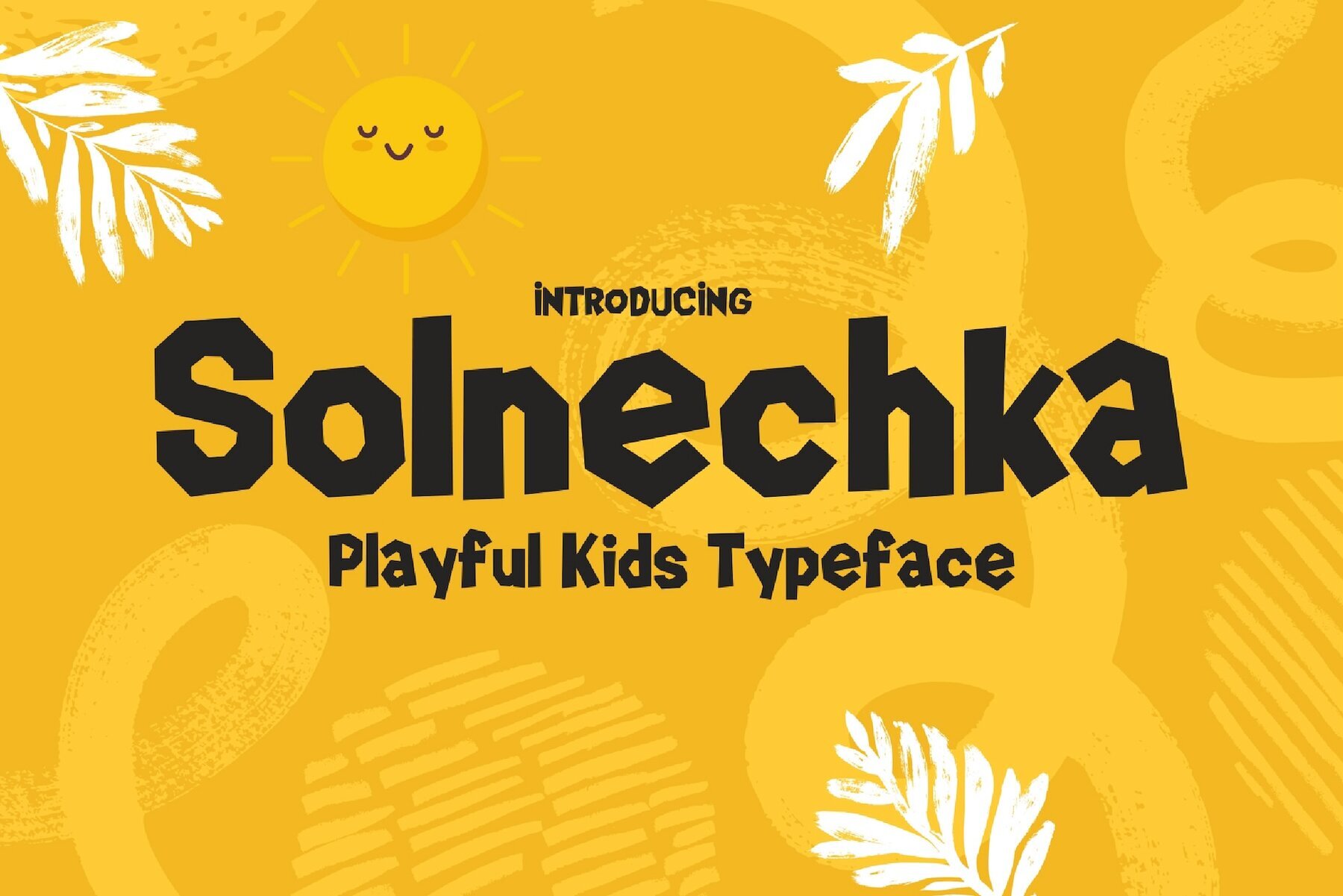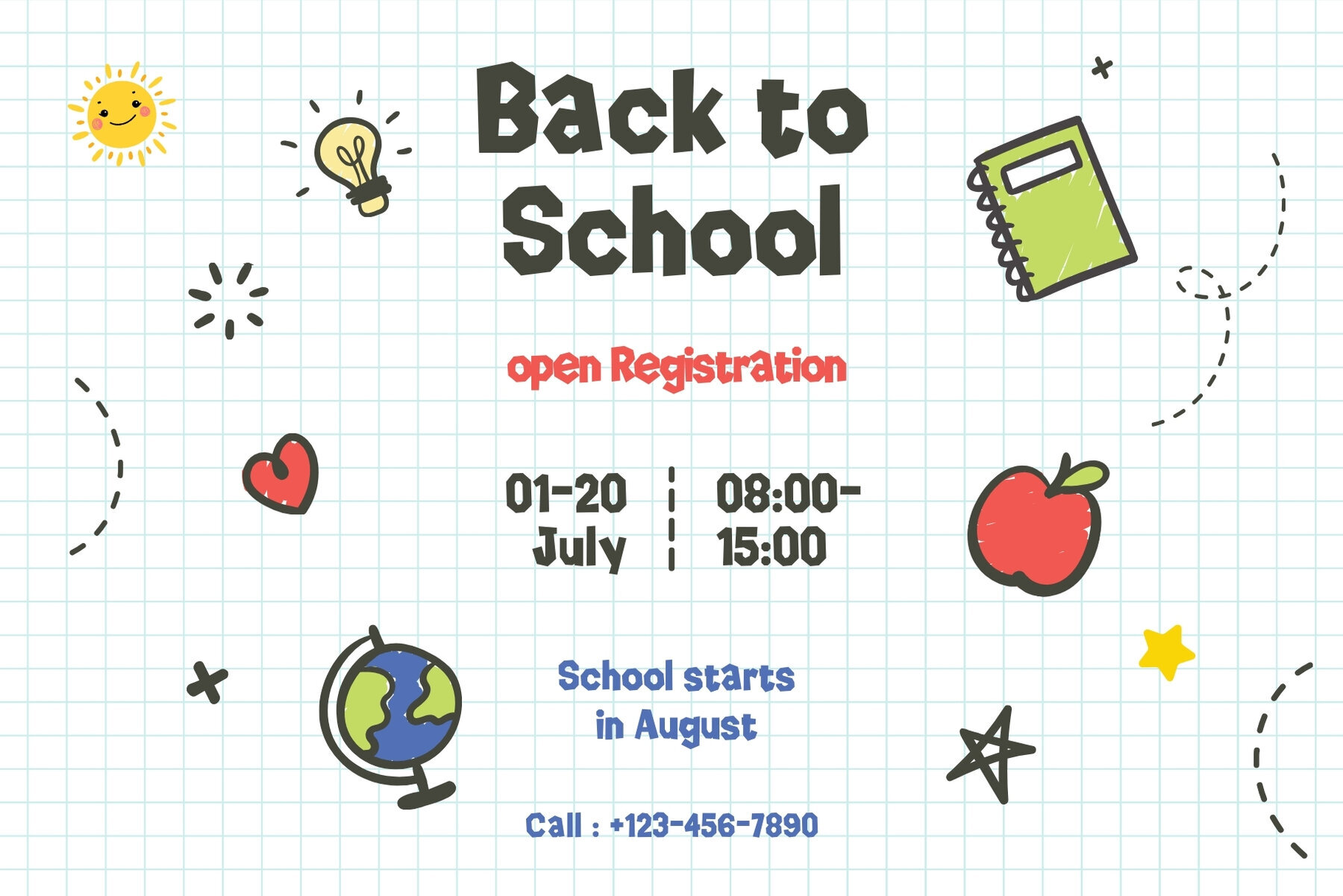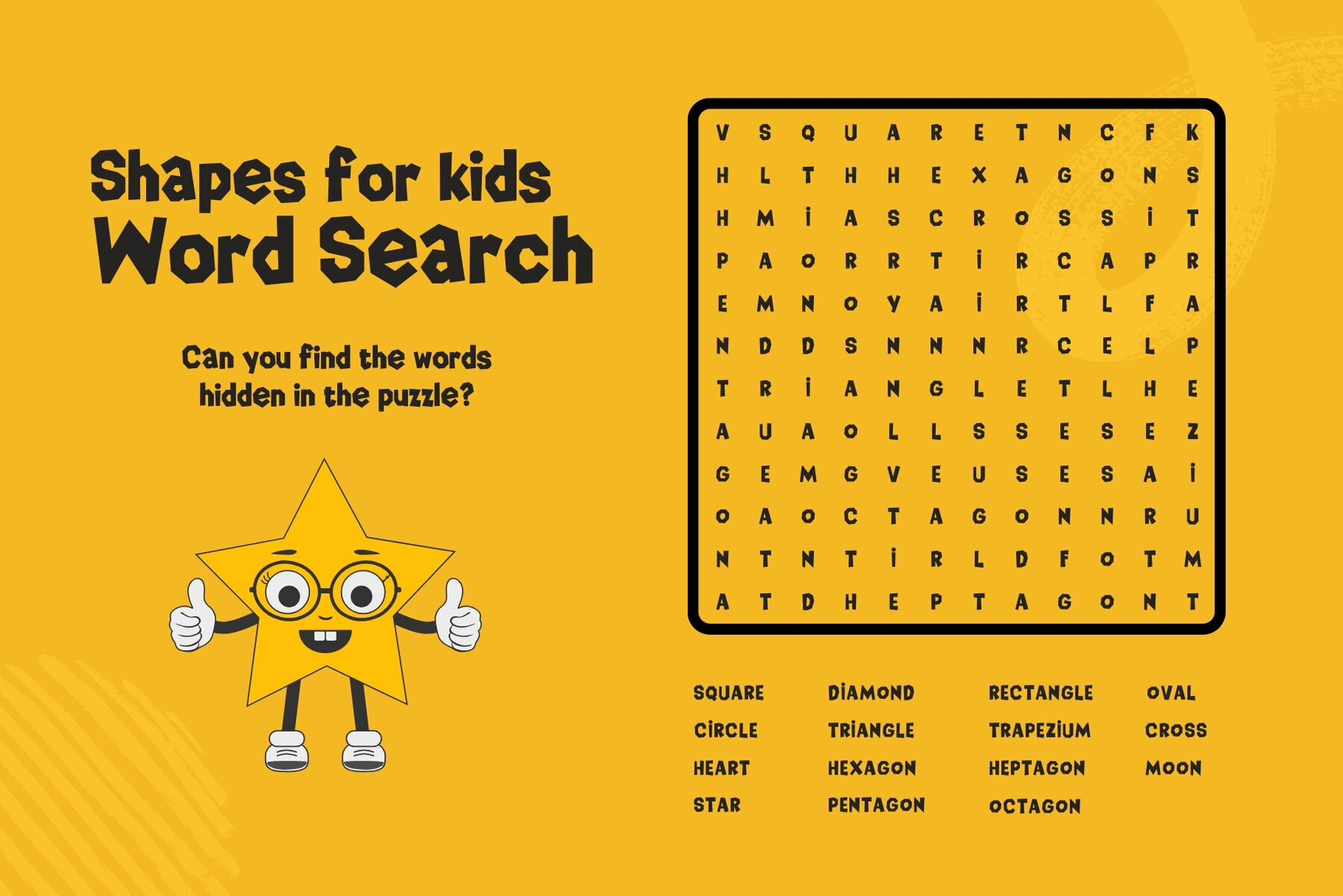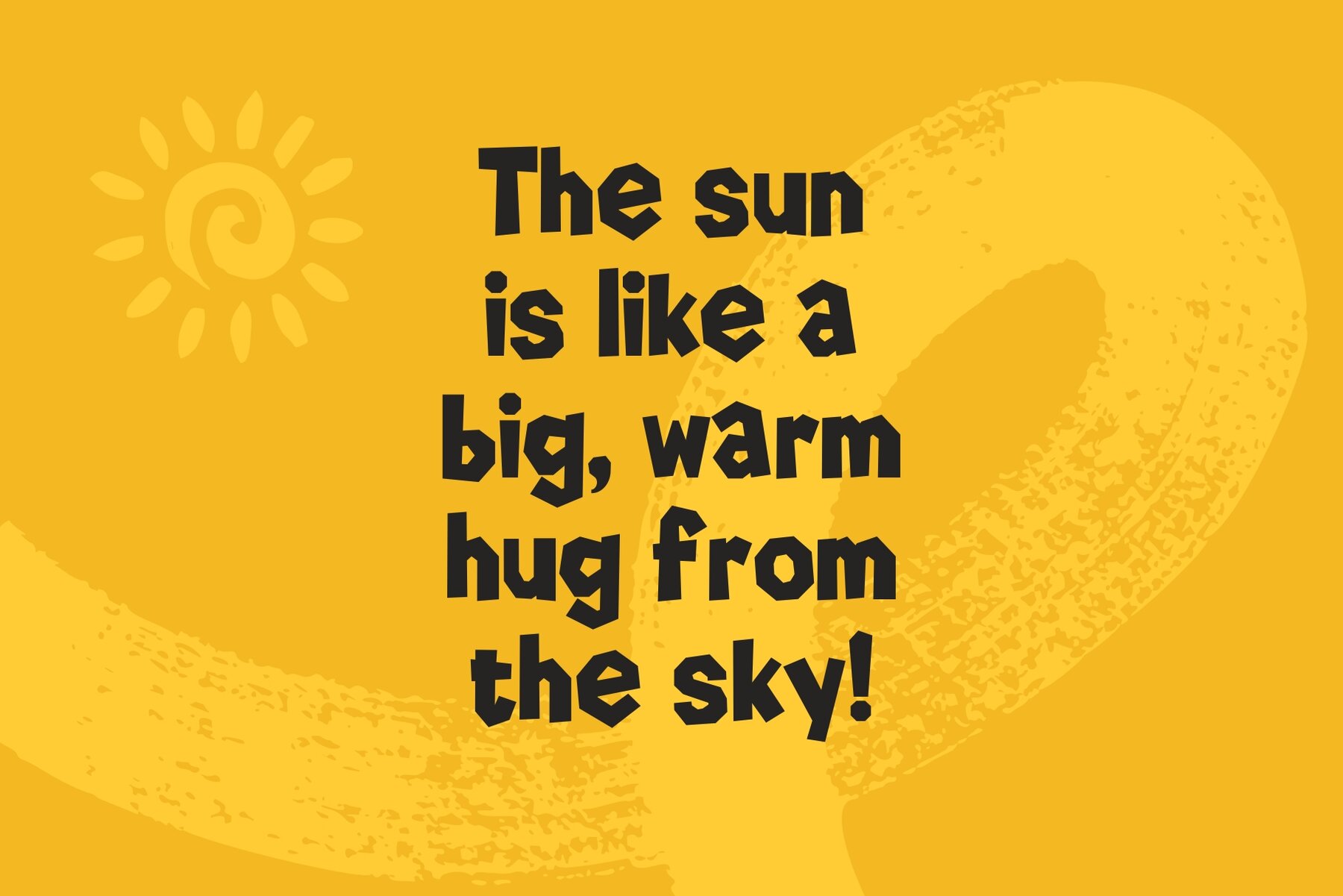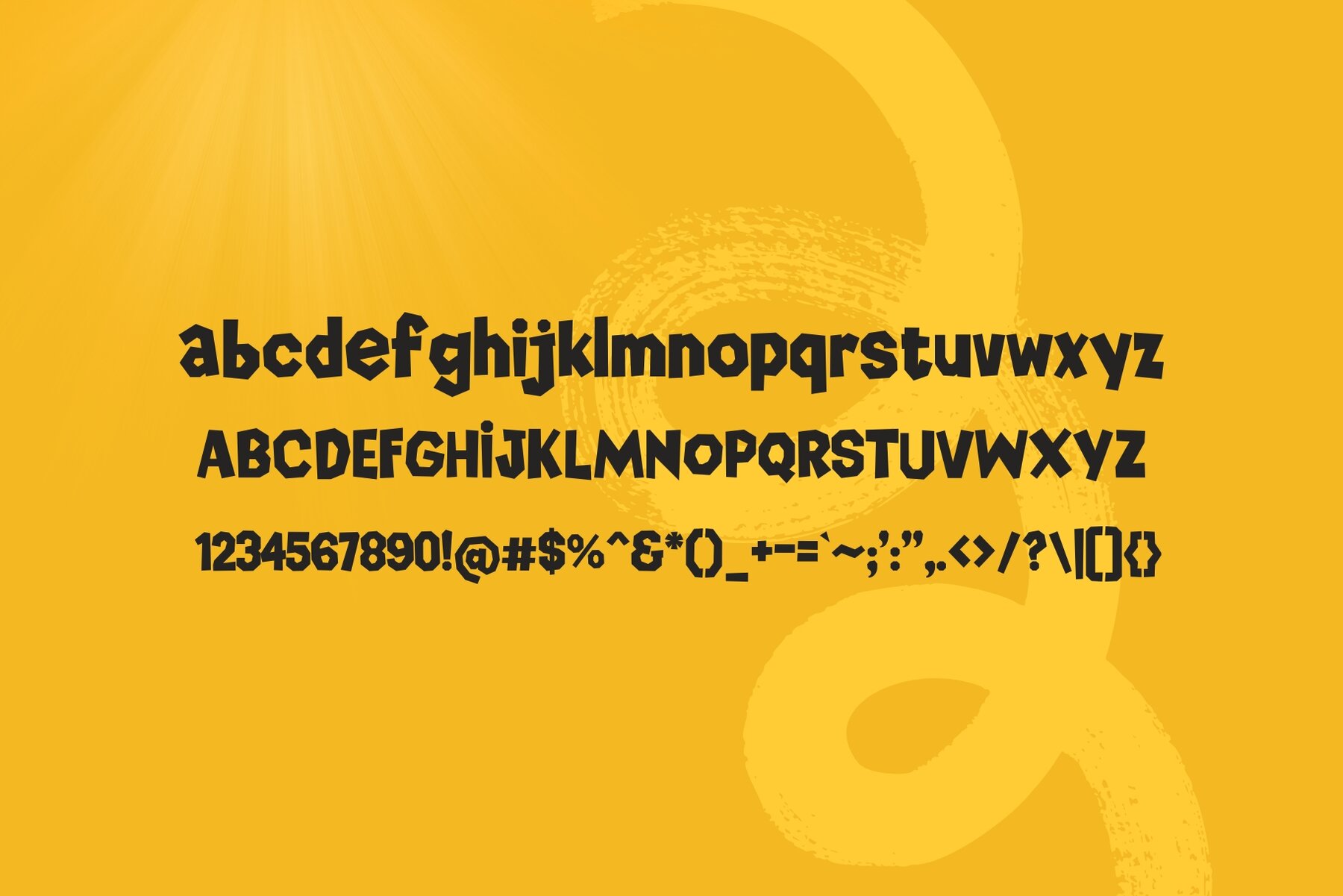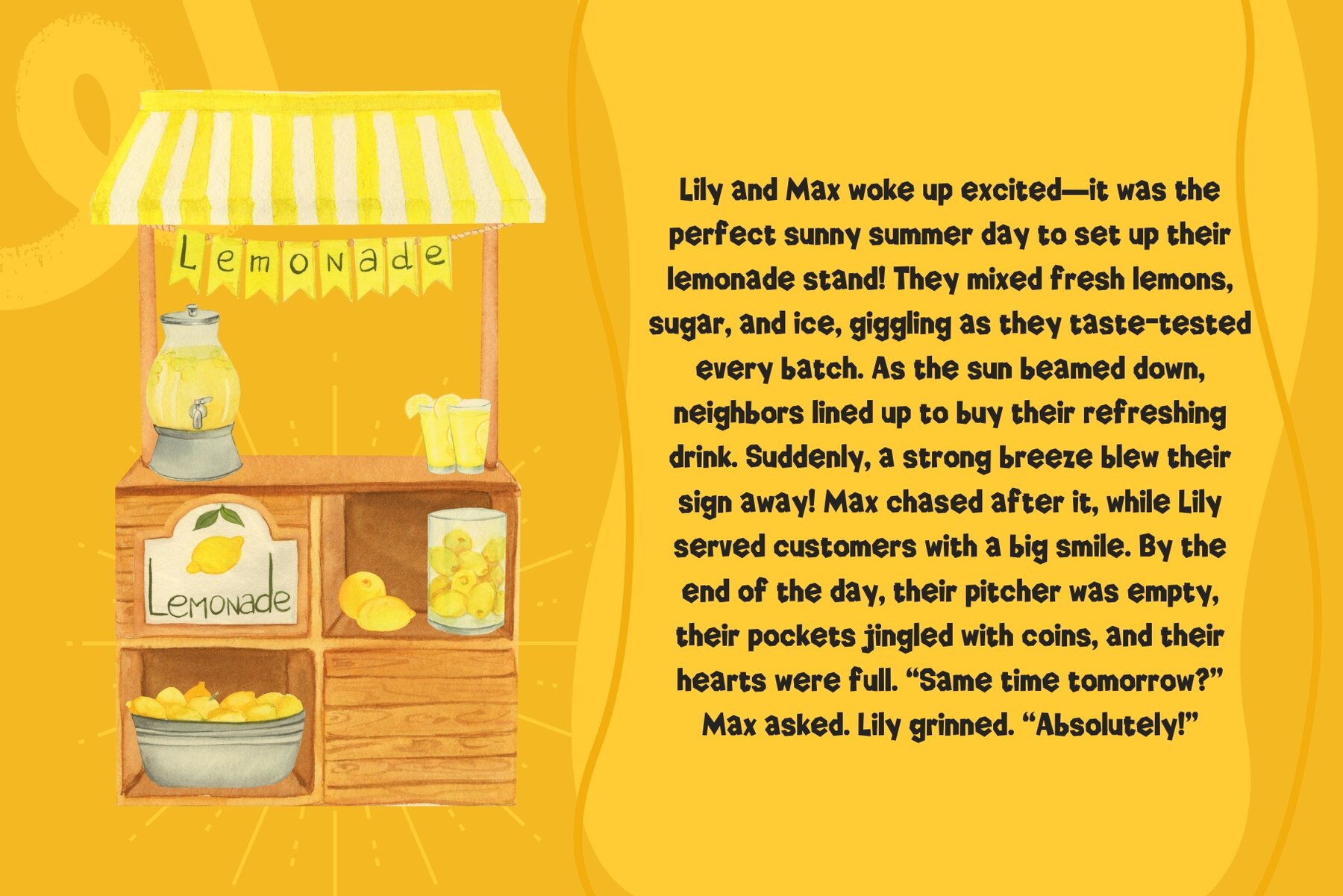
Solnechka Font
Solnechka Regular
Solnechka is the charming and playful typeface that infuses joy and creativity into every endeavor. Designed to engage young readers, this font's easy-to-read letters and whimsical character make it an ideal choice for school projects, teacher worksheets, children’s books, and fun educational activities. Whether you're crafting classroom materials, educational printables, or vibrant posters, Solnechka adds warmth and charm to every word. Enhance your designs with Solnechka and let its sunny personality brighten up any creation!Solnechka: A Quirky Typeface for Creative Projects
Child-Friendly and Delightful